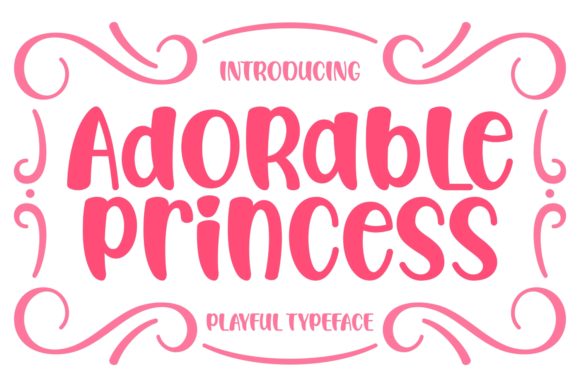
The Magical World of Adorable Princess Font
Have you ever been in the middle of a design project, and suddenly, you’re stuck on finding the perfect font? I recall a recent experience where I was working on a whimsical wedding invitation for a client, and I just couldn’t find a font that captured the essence of romance and playfulness. That’s when I stumbled upon the Adorable Princess font, and it instantly became my go-to choice. In this article, I’ll share my love for this charming font, its features, and how you can make the most of it in your designs.
An Honest Review of Adorable Princess Font
Adorable Princess is a playful display font that has won my heart with its charming and radiant style. Here’s what I love about it:
- ✨ Unique and eye-catching design that’s perfect for making a statement
- ✅ Highly legible, even in smaller sizes
- 🎉 Extensive range of OpenType features, including glyphs and stylistic alternates
- 💕 Perfect for creating dreamy and romantic designs, such as wedding invitations and stationery
While Adorable Princess is an amazing font, it’s not without its quirks. Here are a few things to keep in mind:
- 🤔 Some characters may not work well in very small sizes, so it’s best to use it for headlines or titles
- ⚠️ Limited support for non-English languages, so double-check compatibility before using it for multilingual projects
The Story Behind Adorable Princess Font
While I couldn’t find any information on the exact design process, I imagine that the creator of Adorable Princess was inspired by the magic of fairy tales and the romance of princesses. The font’s playful and charming design makes it perfect for creating whimsical and dreamy designs.
| Author | Keithzo (7NTypes) |
Q: Is Adorable Princess a versatile font?
A: While Adorable Princess is primarily designed for display purposes, it’s surprisingly versatile and can be used for a range of design projects, from wedding invitations to social media posts.